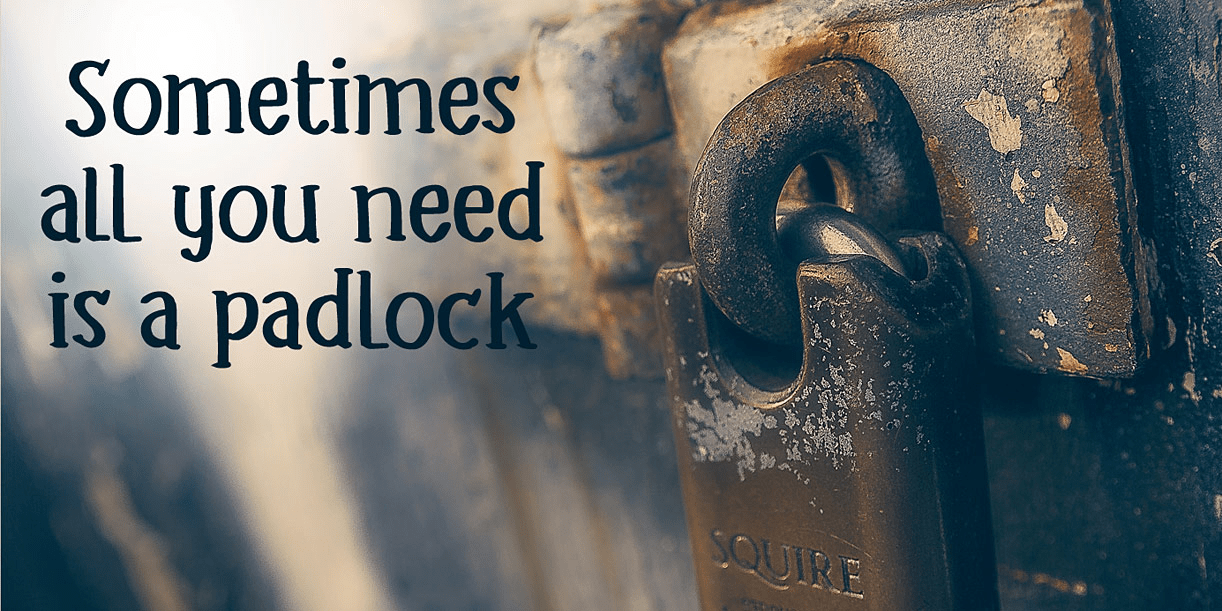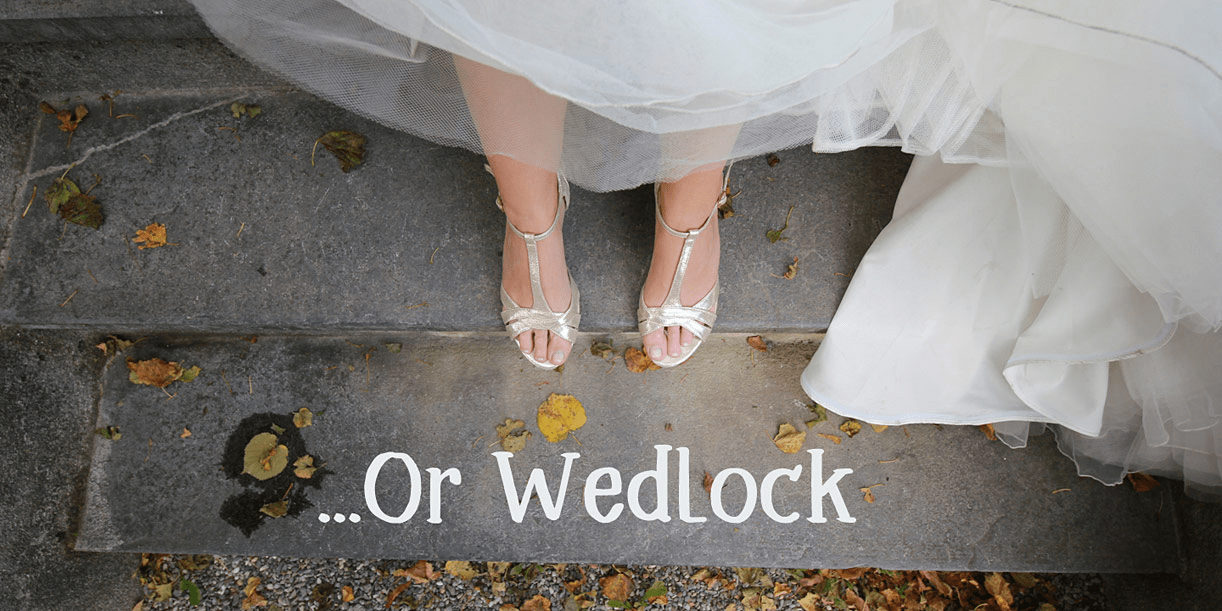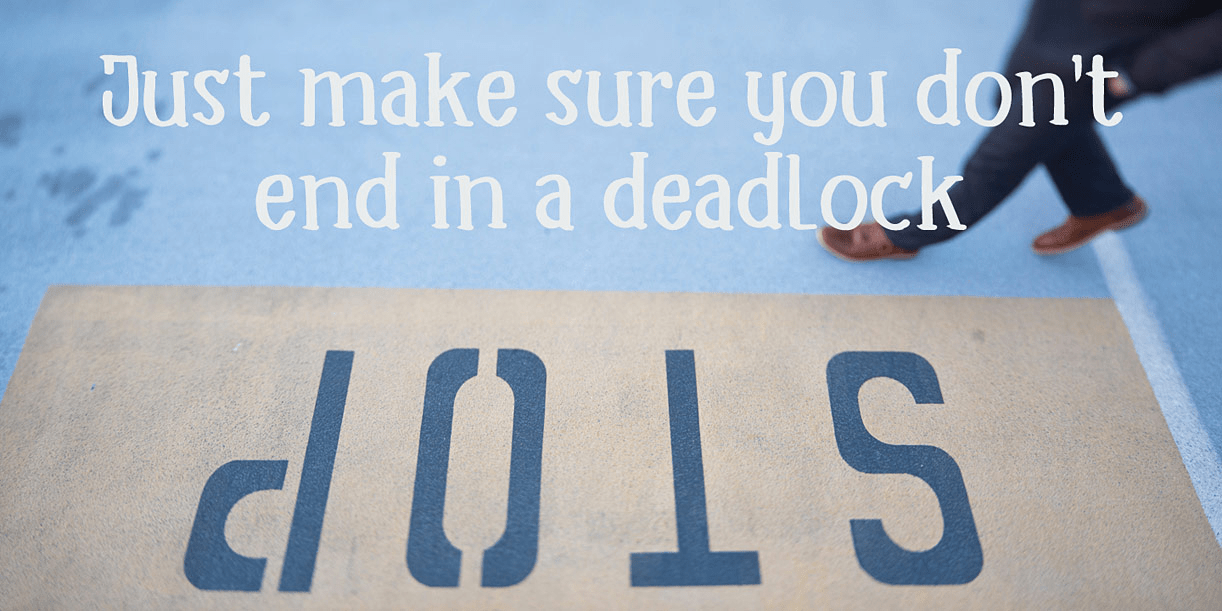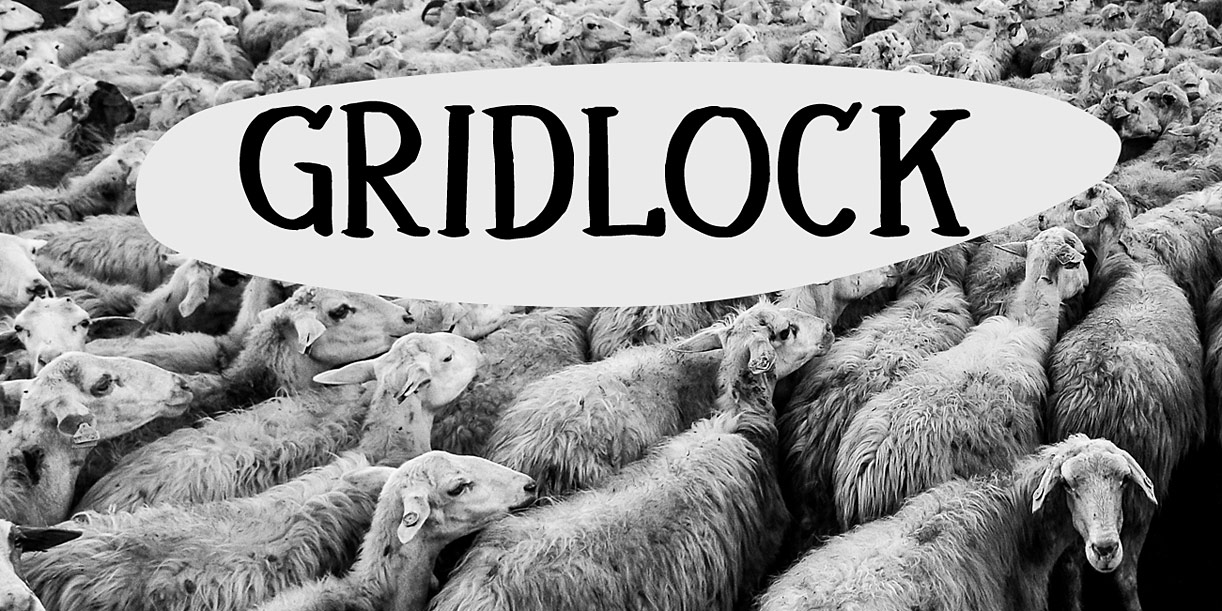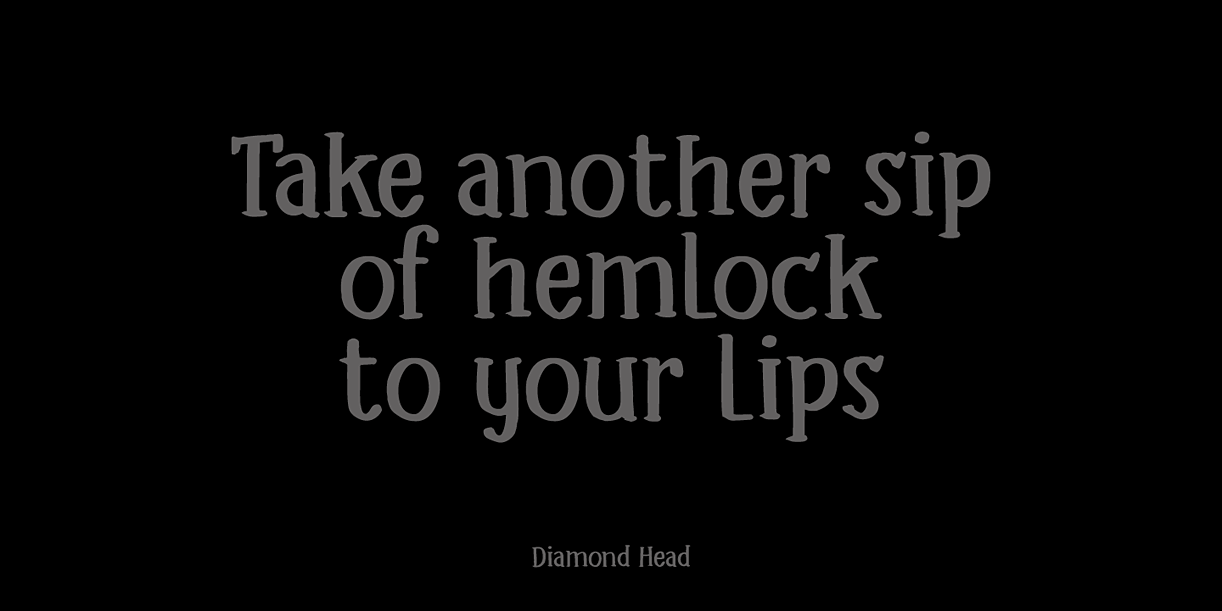
Headlock
Headlock is a handmade serif. My 6 year old son just had his first real Judo exam and the one thing he excels at is the headlock. Headlock comes with double letter ligatures and all the diacritics you need, plus basic Cyrillic!